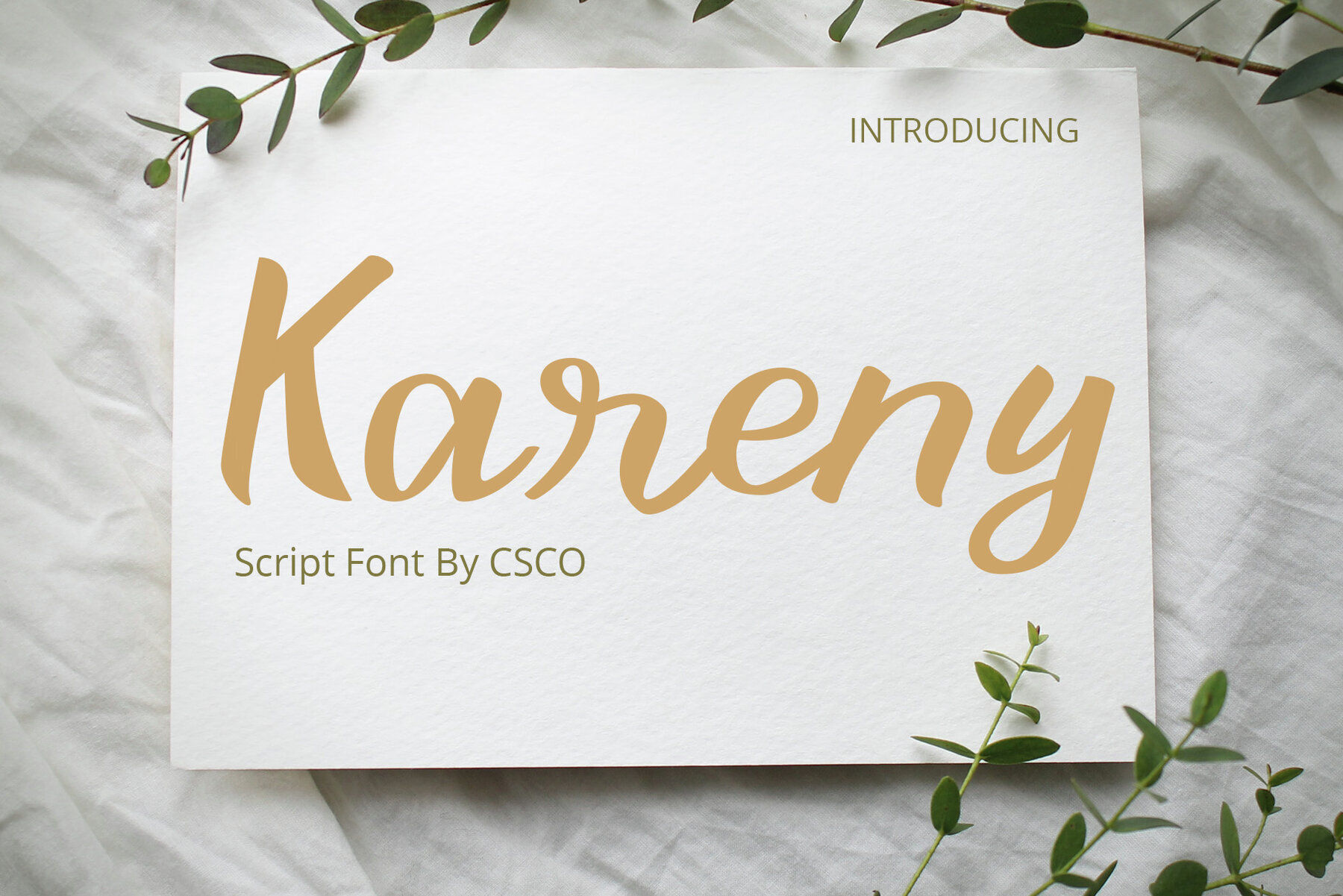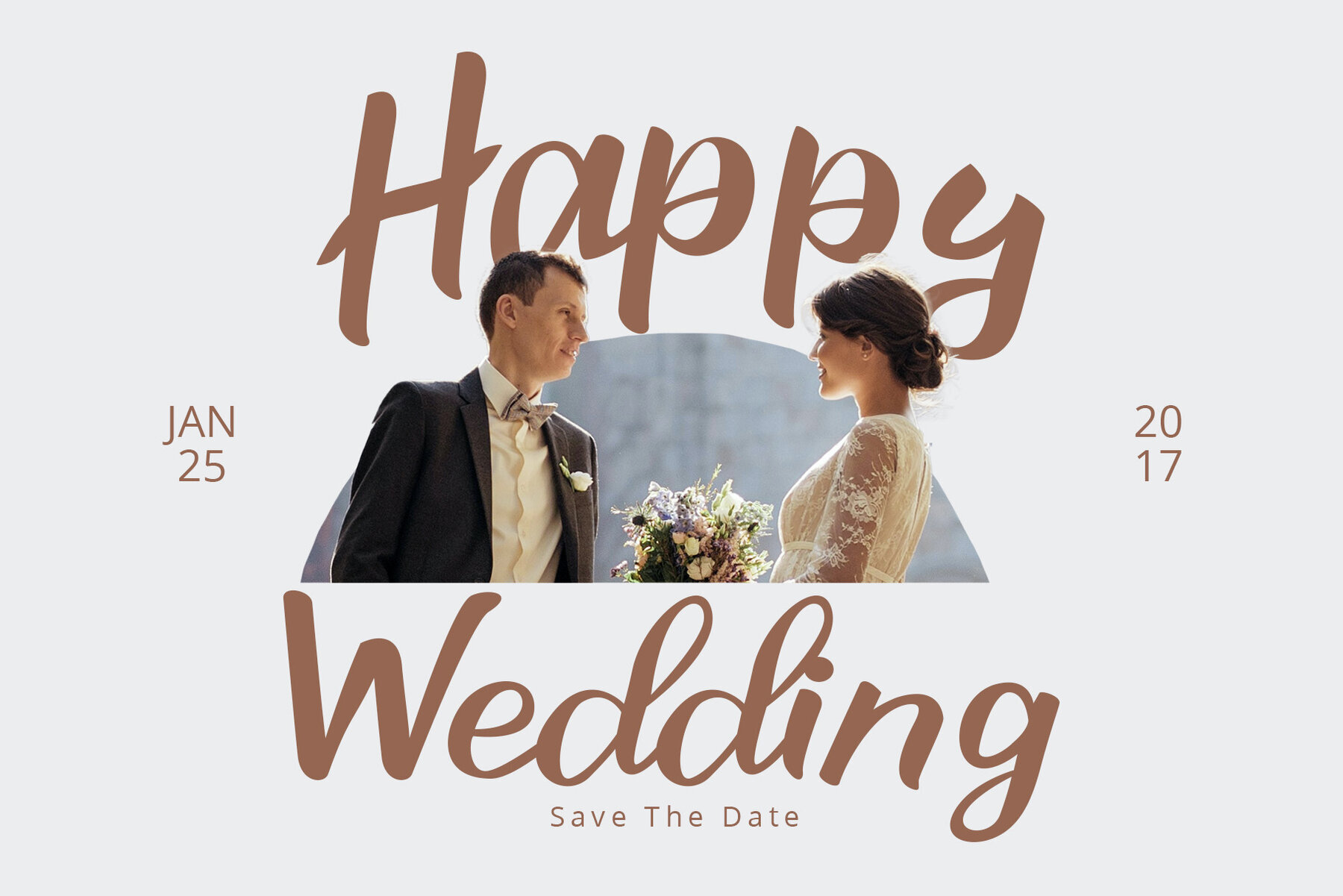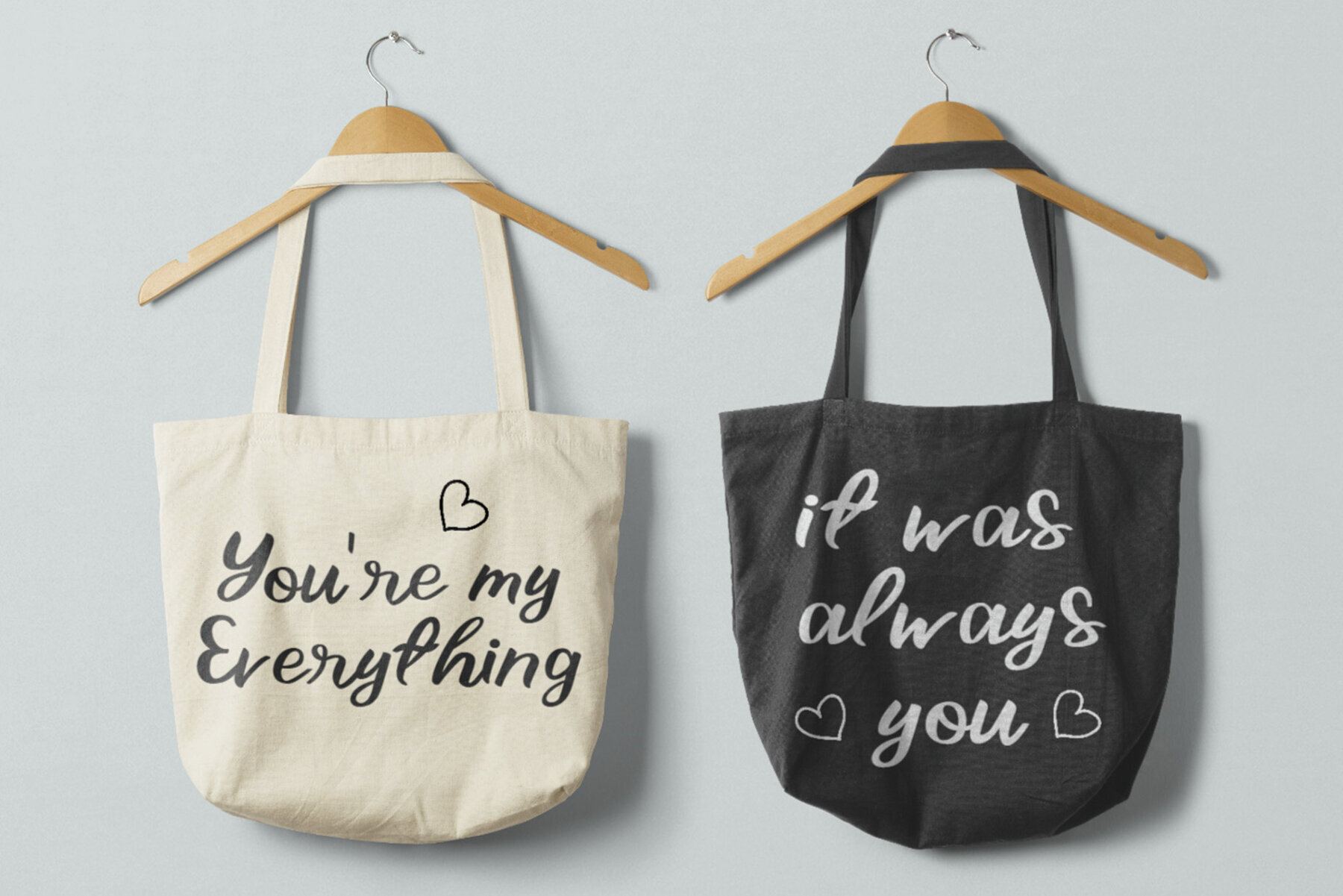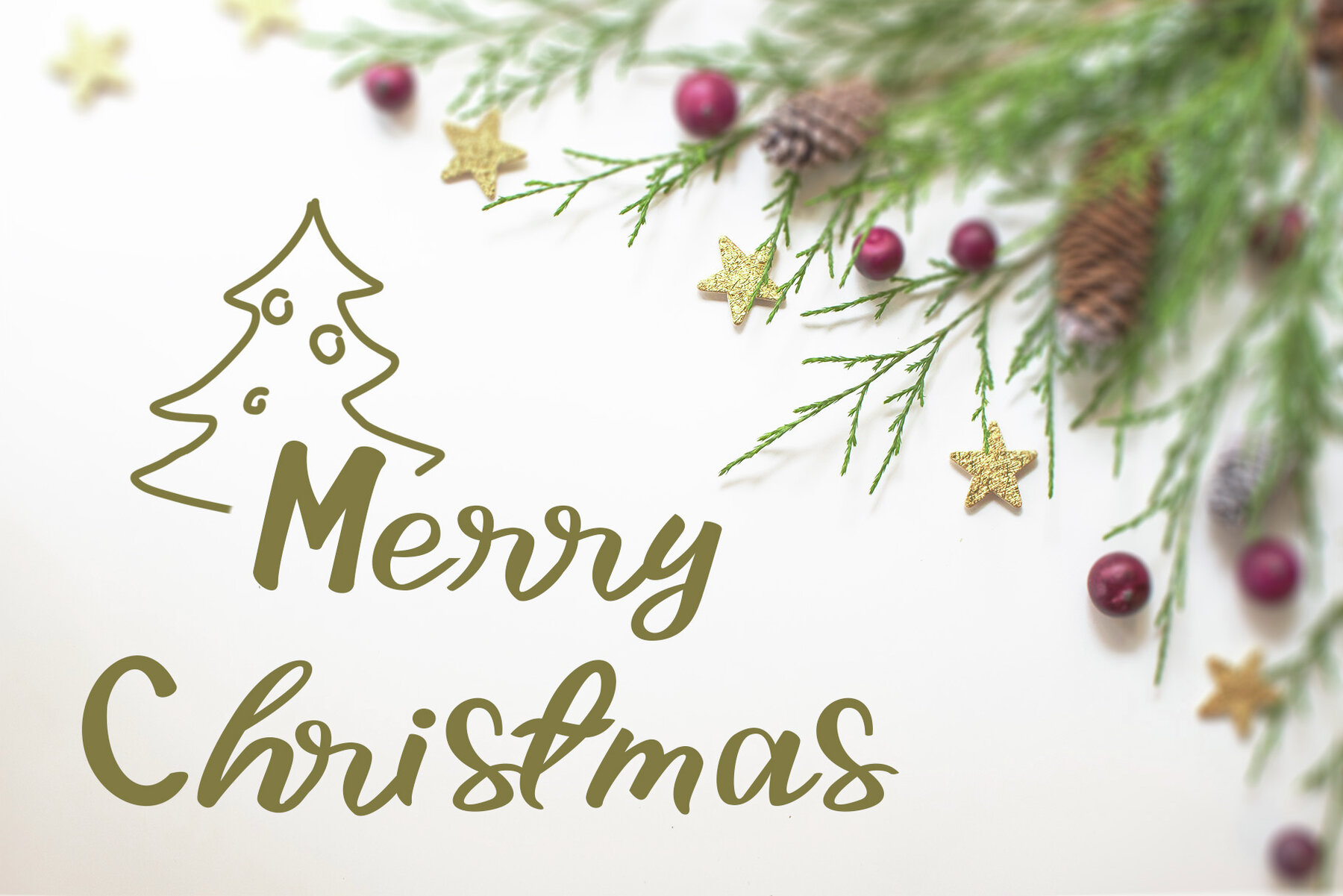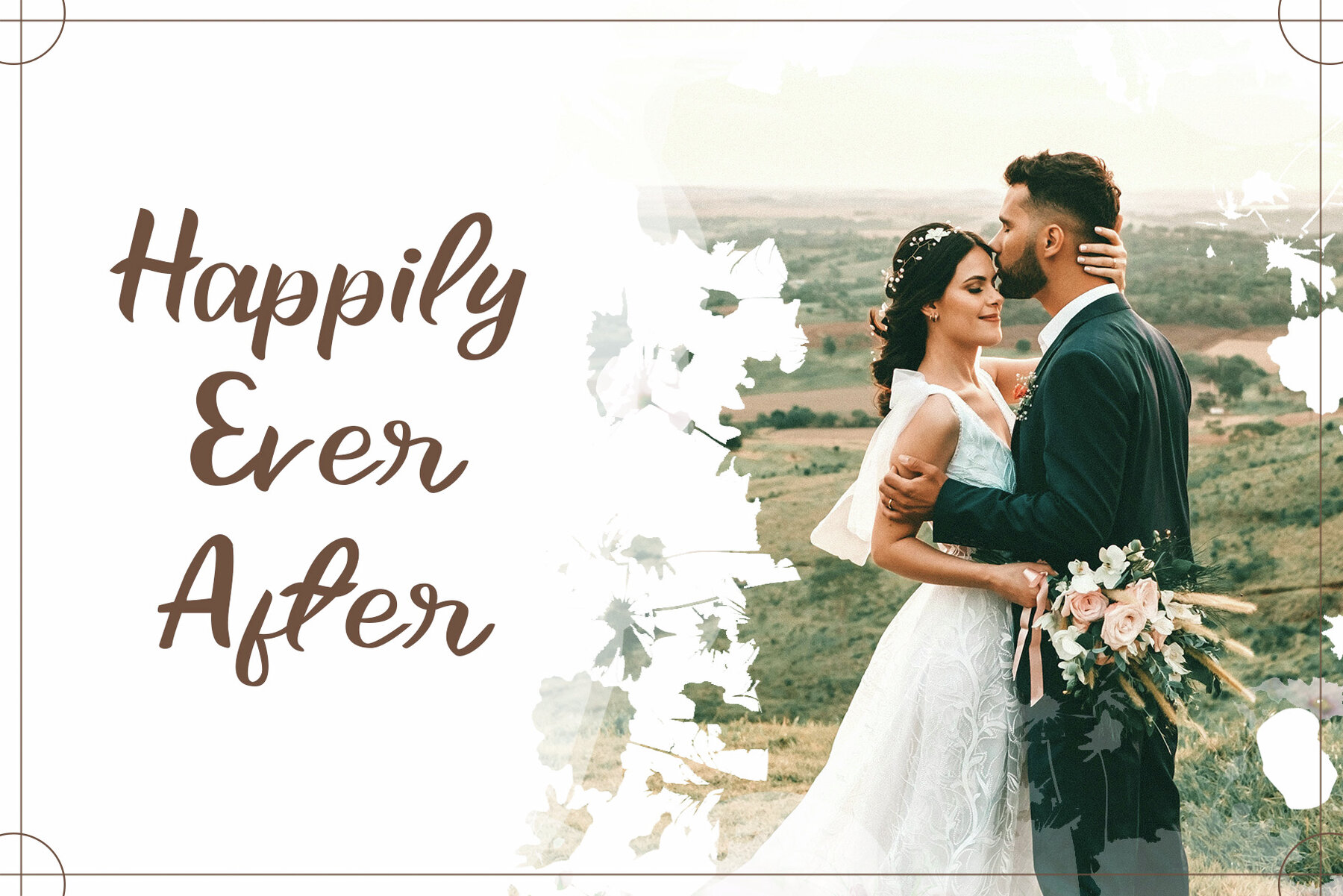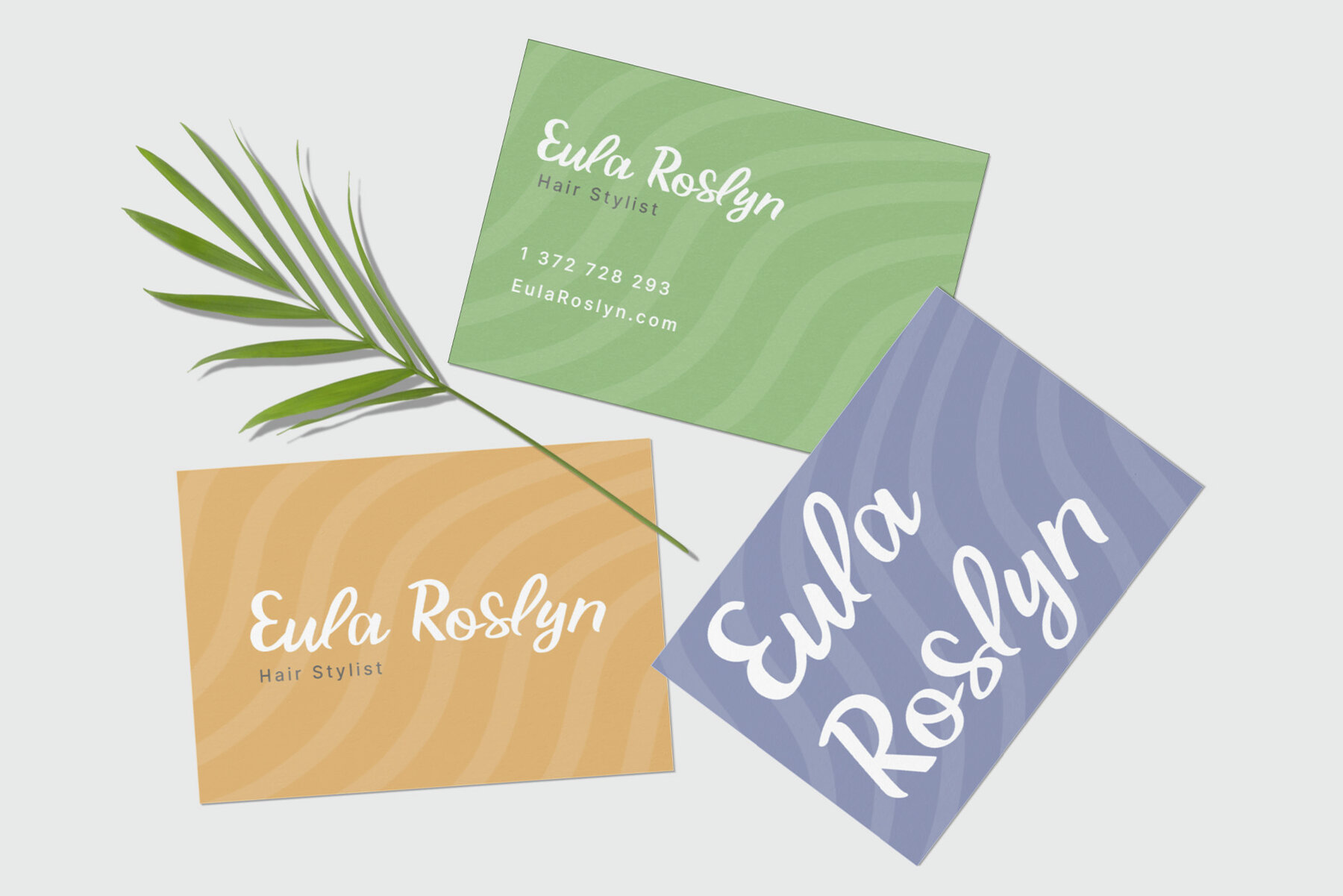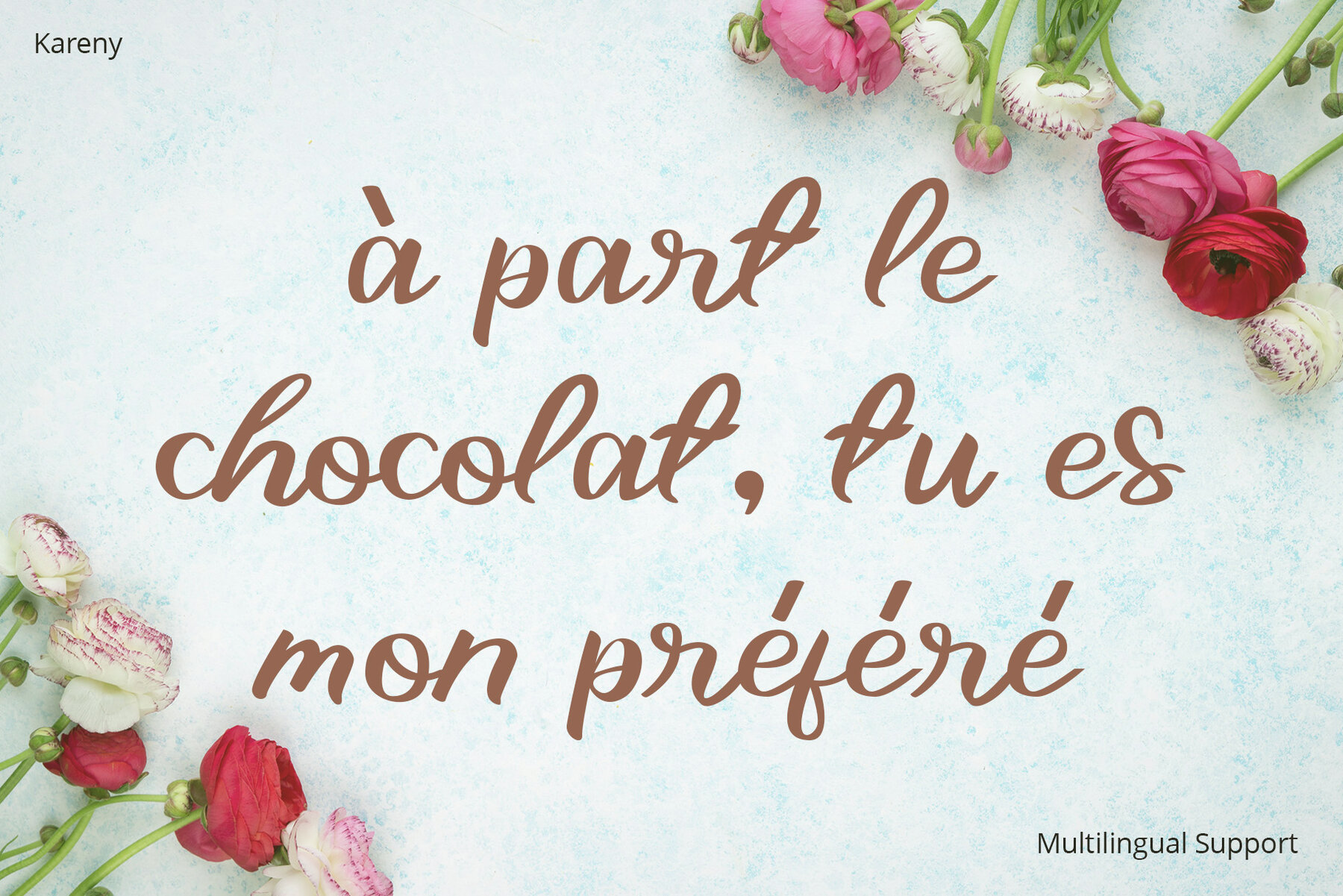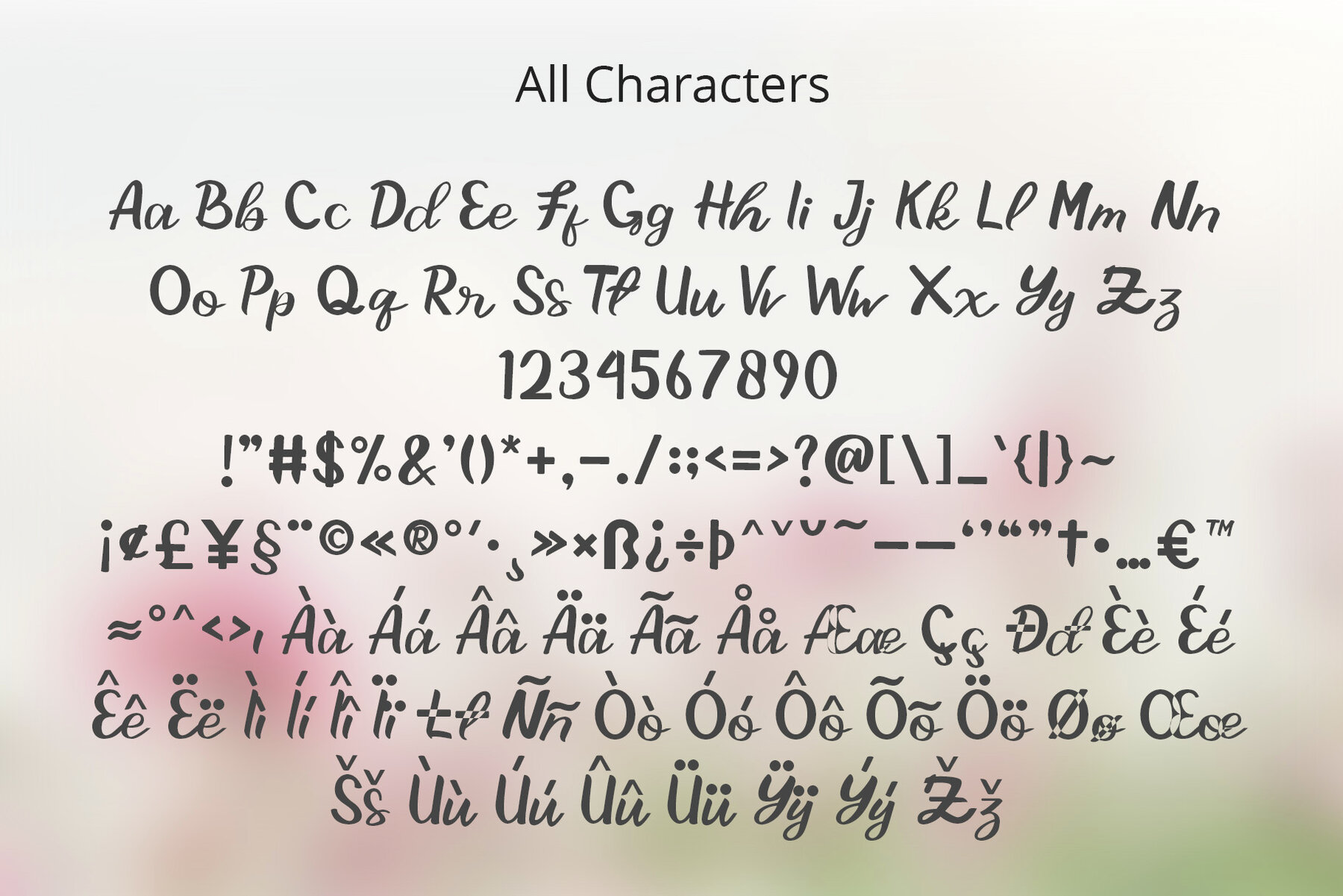
Kareny Font
Kareny Regular
Kareny introduces a delightful brush script font that bursts with charm. Each letter dances with playful creativity, captivating the eye with a warm and friendly style. Kareny seamlessly transitions across various applications, making it an ideal companion for diverse display needs. It crafts a space where readability meets distinctive visual appeal. Kareny champions the beauty of simplicity, maintaining an uncluttered and accessible appearance. It's a gateway to creating designs that speak volumes with subtlety and grace.Kareny: Brush Script with Elegant Versatility
Effortless Versatility
Elegance in Simplicity